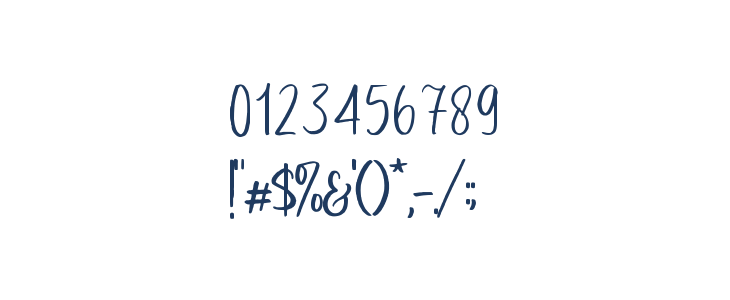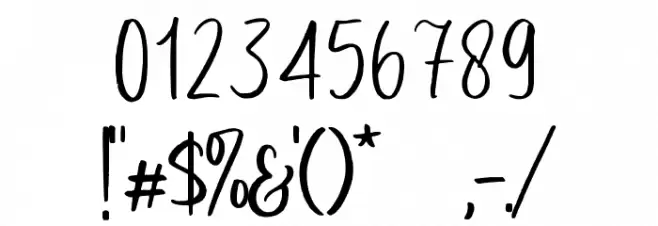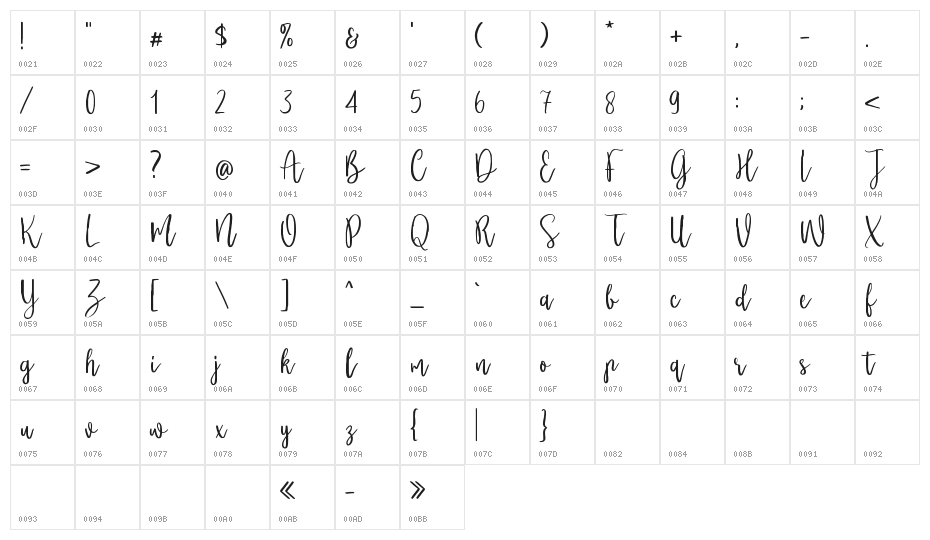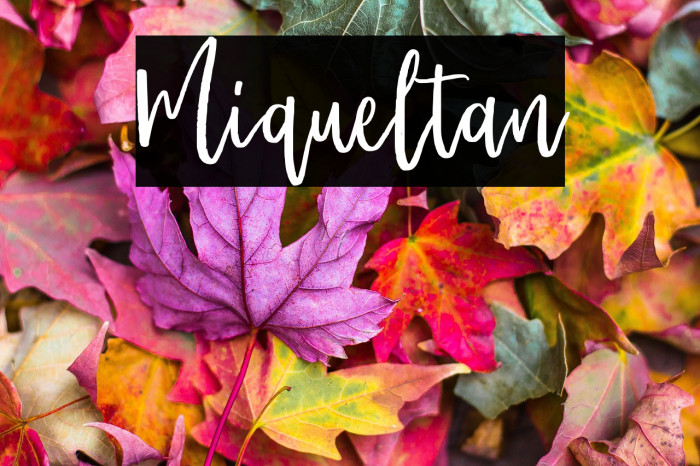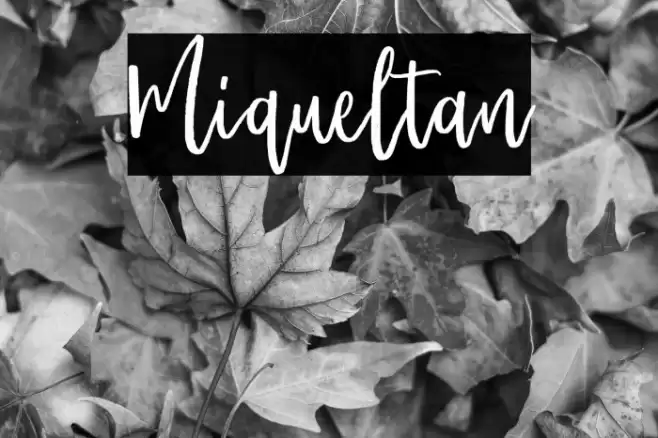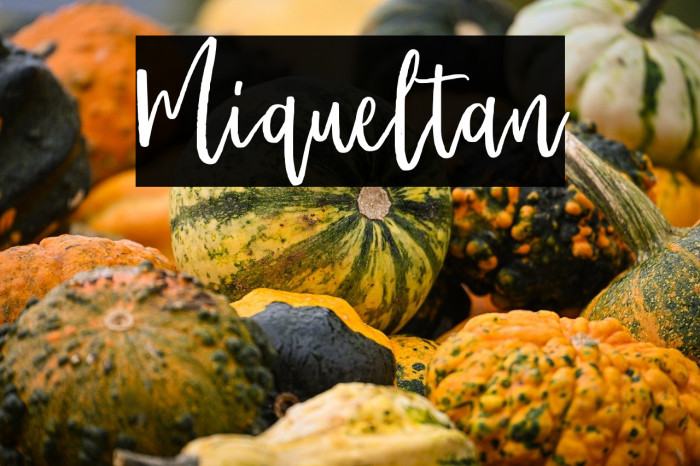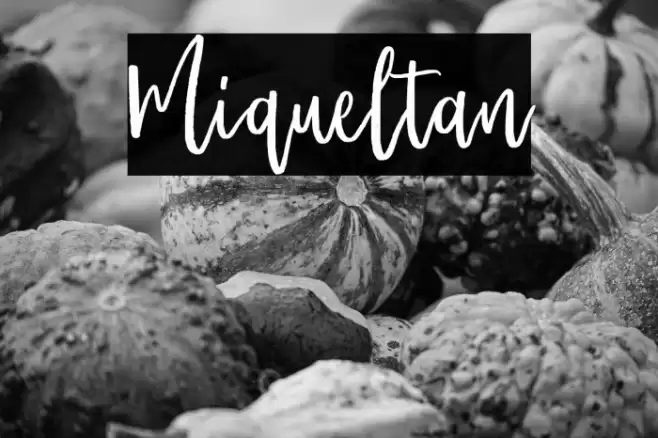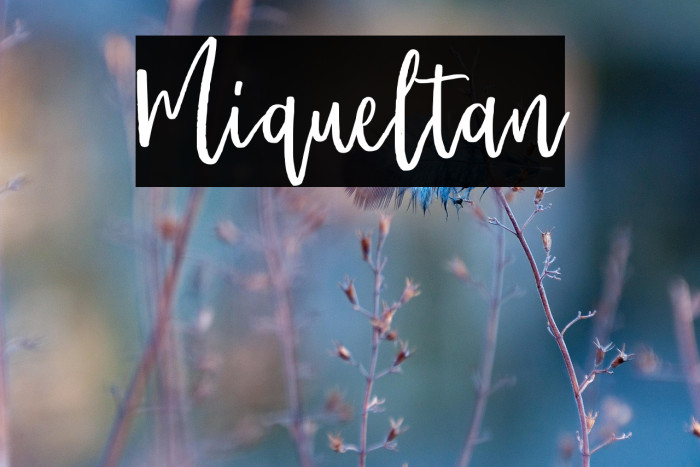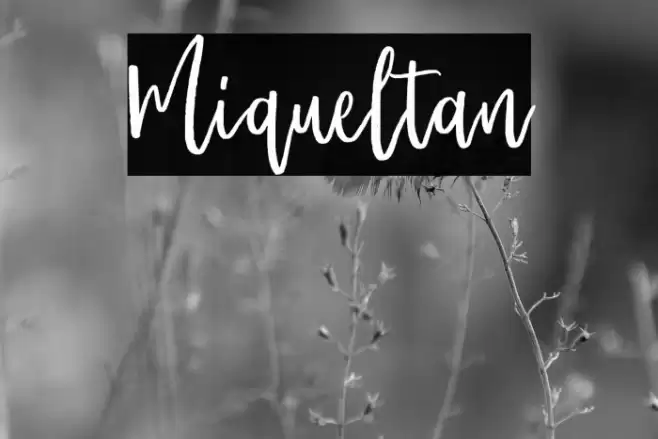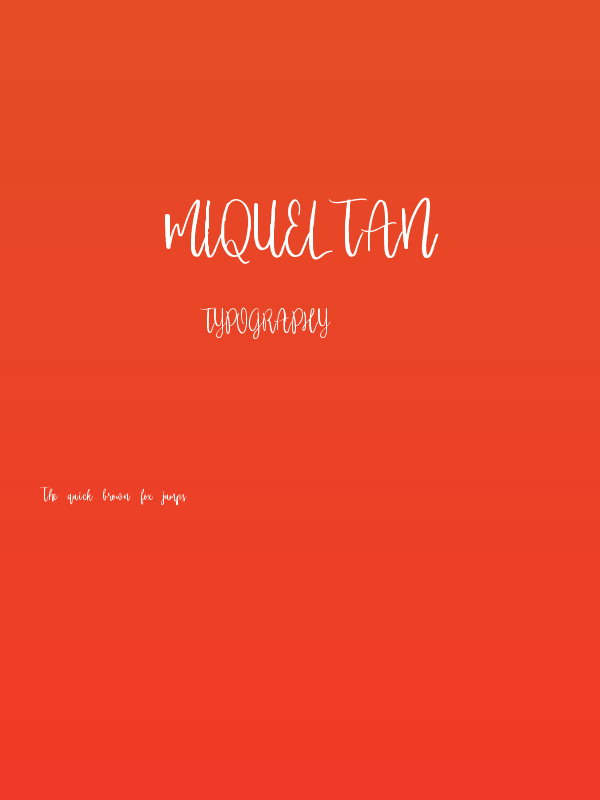
Miqueltan Font
Miqueltan Description
This font features a lively and flowing script style, characterized by its elegant, cursive letterforms. The uppercase letters are tall and slender, with graceful loops and swashes that add a touch of sophistication. The lowercase letters maintain a consistent flow, with smooth connections between each character, creating a harmonious and cohesive look. The numbers and special characters are designed to match the overall aesthetic, with a playful yet refined appearance. This font exudes a sense of creativity and elegance, making it suitable for a variety of design projects.